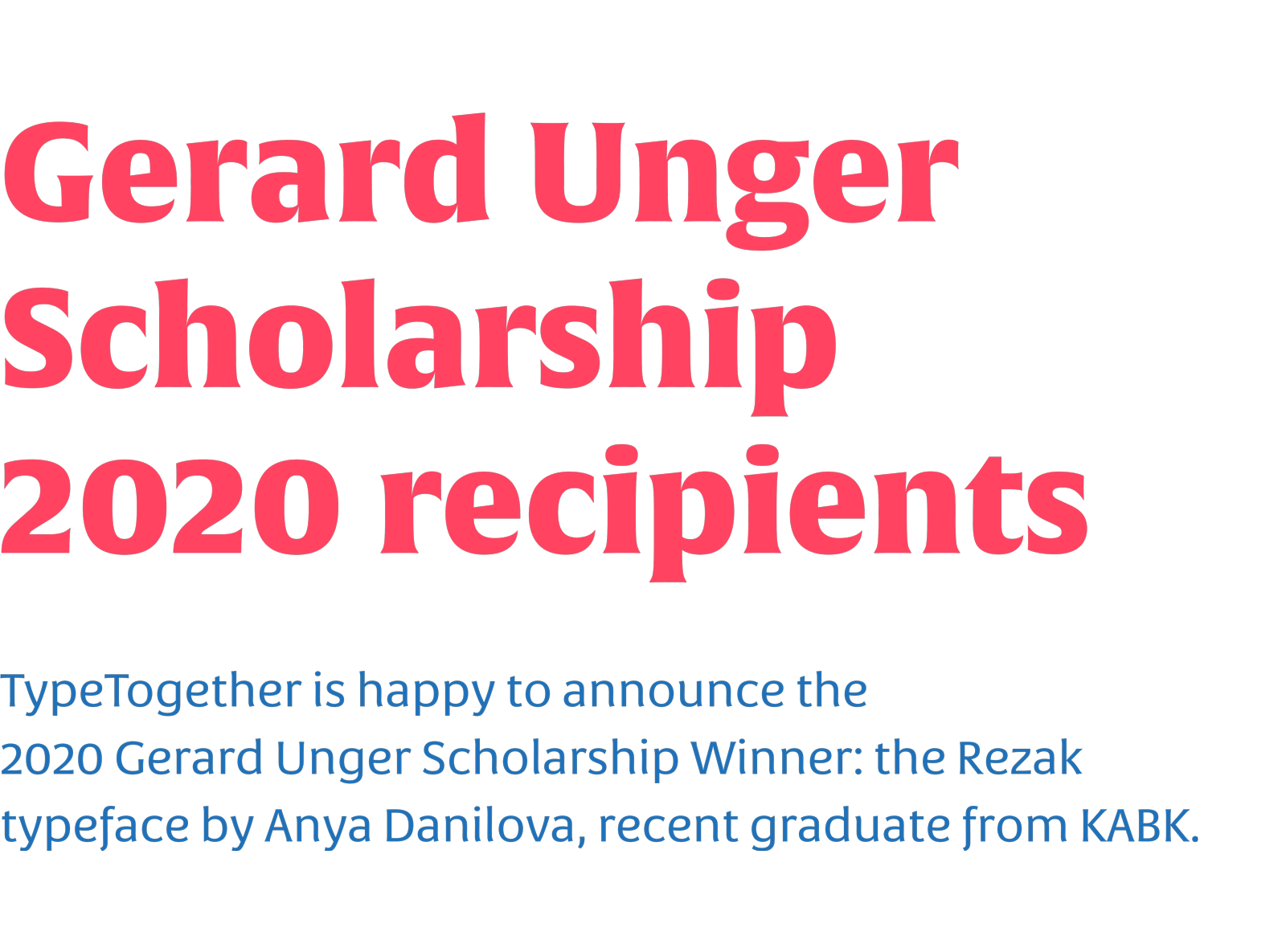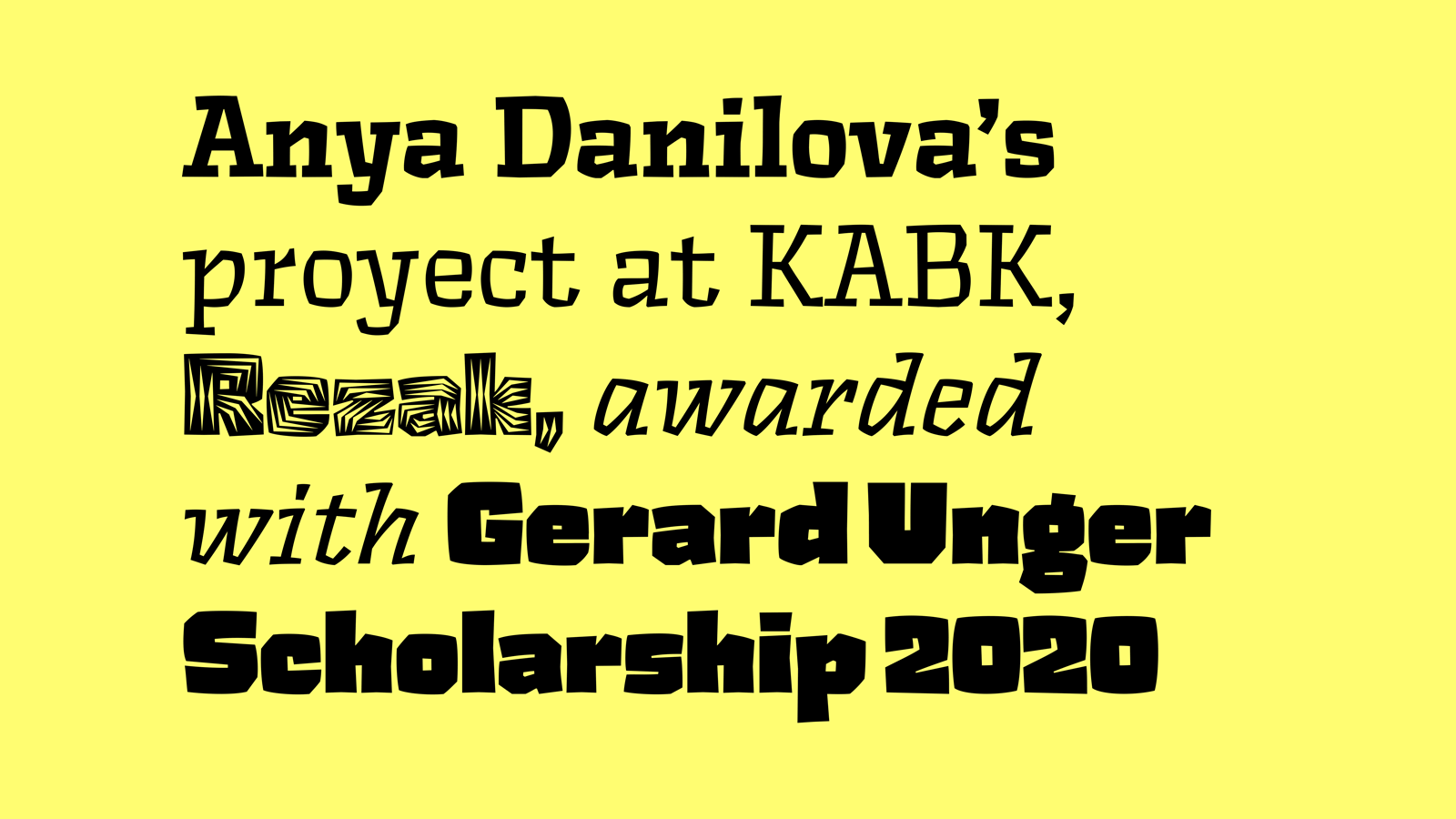
Veronika Burian and José Scaglione, the founders of TypeTogether, comment about this edition of the Scholarship: “This year, the scholarship recipient is Rezak, a Latin and Cyrillic type family by Russian type designer Anya Danilova. Her work is bold, energetic, and well informed. And while it is in every sense a novel design that will make great company to previous GUS winners, it also displays a wink to the work of some type masters like Preissig, Menhart, and Dwiggins. This push toward creativity and innovation with an eye on typography’s rich history is an important part of our foundry’s efforts.”